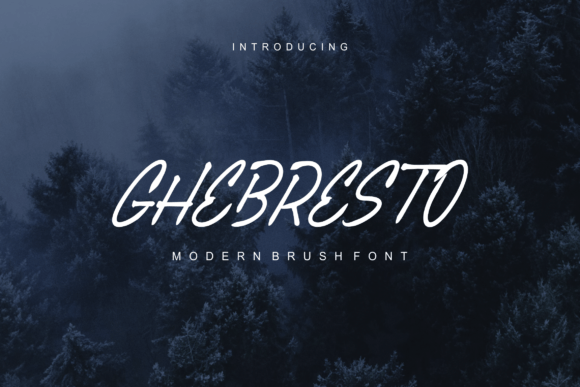
Gheb Resto Font: Elevate Your Designs with a Modern Brush Font
In the world of typography, fonts play a crucial role in conveying the tone and personality of a design. Among the numerous font styles available, brush fonts have gained immense popularity for their unique, handcrafted look. One such font that has caught the attention of designers and typography enthusiasts is the Gheb Resto Font. In this article, we’ll delve into the features, benefits, and usage of Gheb Resto, a modern brush font that can add a creative touch to any design.
What is Gheb Resto Font?
Gheb Resto is a modern brush font that boasts a stylish and relaxed appearance. Its smooth, flowing lines give it a casual, yet sophisticated feel, making it perfect for a wide range of design applications. The font’s unique blend of elegance and playfulness makes it an excellent choice for designers looking to add a creative touch to their work.
Key Features of Gheb Resto Font
- Modern Brush Style: Gheb Resto features a modern brush font style with smooth, flowing lines that give it a relaxed and casual look.
- Sophisticated Feel: Despite its casual appearance, Gheb Resto exudes a sense of sophistication, making it suitable for high-end designs.
- Creative Touch: The font’s unique style allows designers to add a creative touch to their work, setting it apart from more traditional fonts.
- Versatile: Gheb Resto can be used for a wide range of design applications, from logos and branding to packaging and advertising.
Benefits of Using Gheb Resto Font
Using Gheb Resto Font in your designs can offer several benefits, including:
- Unique Visual Identity: Gheb Resto’s distinctive style can help create a unique visual identity for your brand or design.
- Emotional Connection: The font’s casual, yet sophisticated feel can help establish an emotional connection with your audience.
- Flexibility: Gheb Resto can be used in various design applications, making it a versatile addition to your font library.
- Time-Saving: With Gheb Resto, you can quickly create stunning designs without spending hours on typography.
How to Use Gheb Resto Font
Using Gheb Resto Font is straightforward and easy. Here are some tips to get you started:
- Pair it with Other Fonts: Combine Gheb Resto with other fonts to create a unique typography style.
- Experiment with Colors: Try out different colors to find the perfect match for your design.
- Use it for Headings: Gheb Resto is perfect for headings and titles, adding a creative touch to your design.
- Keep it Simple: Don’t overcomplicate your design – keep it simple and let Gheb Resto shine.
Design Applications for Gheb Resto Font
Gheb Resto Font can be used in a variety of design applications, including:
- Logo Design: Create a unique logo for your brand using Gheb Resto.
- Branding: Use Gheb Resto to create a consistent visual identity for your brand.
- Packaging Design: Add a creative touch to your packaging design with Gheb Resto.
- Advertising: Use Gheb Resto in your advertising materials to grab attention.
Tips for Pairing Gheb Resto Font with Other Fonts
Pairing Gheb Resto with other fonts can create a unique typography style. Here are some tips:
- Contrast with Serif Fonts: Pair Gheb Resto with serif fonts for a striking contrast.
- Match with Script Fonts: Combine Gheb Resto with script fonts for a elegant look.
- Use Sans-Serif Fonts: Pair Gheb Resto with sans-serif fonts for a modern look.
Gheb Resto Font is a modern brush font that can add a creative touch to any design. Its smooth, flowing lines give it a casual, yet sophisticated feel, making it perfect for a wide range of design applications. With its unique visual identity, emotional connection, and flexibility, Gheb Resto is an excellent choice for designers looking to elevate their designs.
- What is Gheb Resto Font? Gheb Resto is a modern brush font with a stylish and relaxed look.
- What design applications can I use Gheb Resto for? Gheb Resto can be used for logo design, branding, packaging design, advertising, and more.
- Can I pair Gheb Resto with other fonts? Yes, Gheb Resto can be paired with other fonts to create a unique typography style.